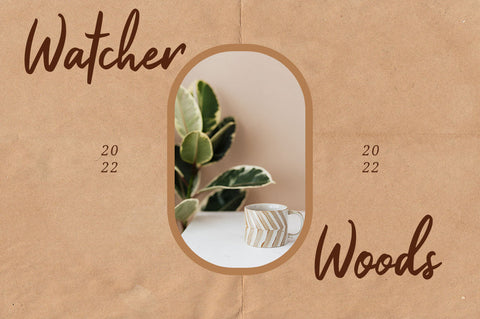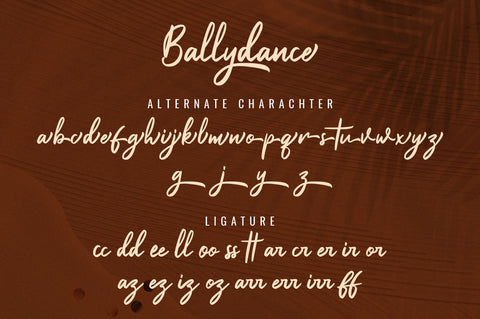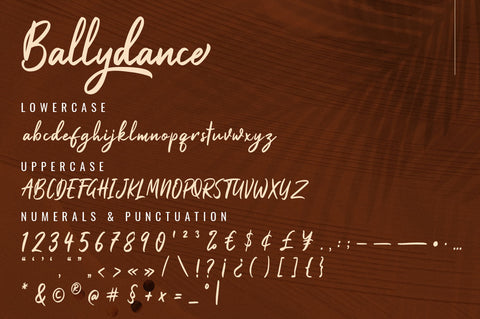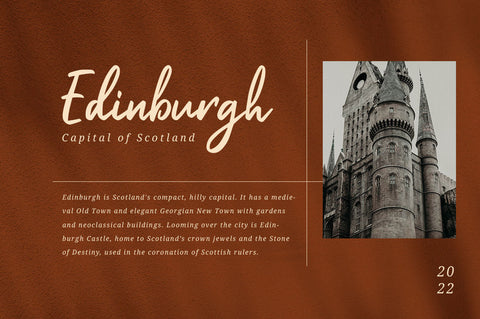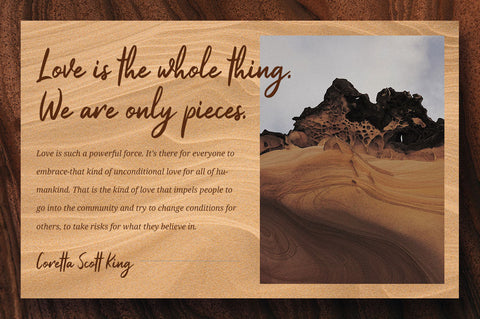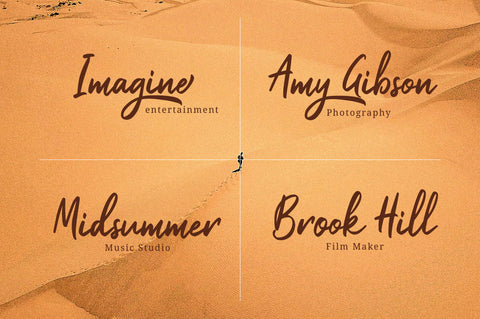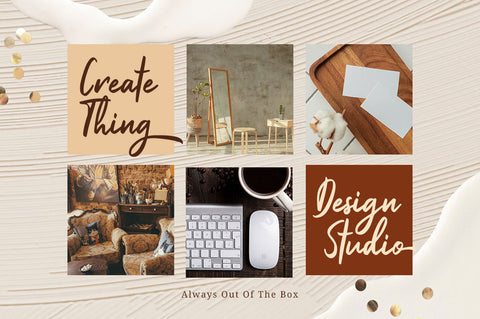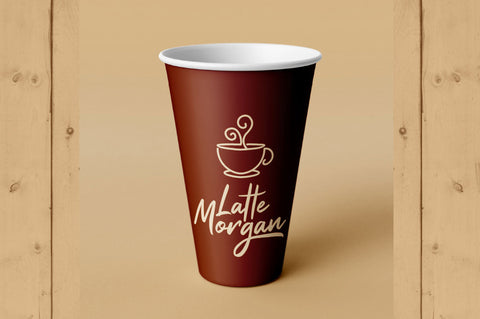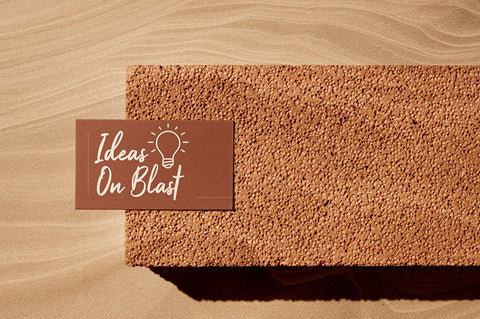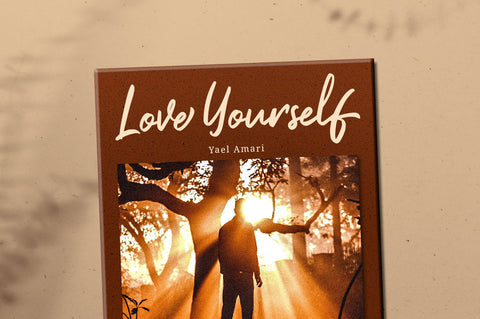
Ballydance - Handwritten Script Font
Ballydance Handwritten Script Font is a cursive, paint brushed script font, featuring characters that seem to dance along the baseline. Add this font to your most creative ideas, and notice how it makes them stand out!
Ballydance Handwritten Script Font is PUA encoded which means you can access all of the amazing glyphs and ligatures with ease!